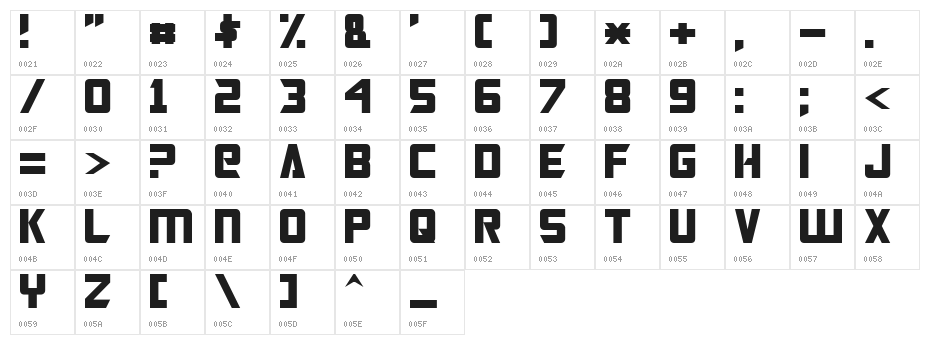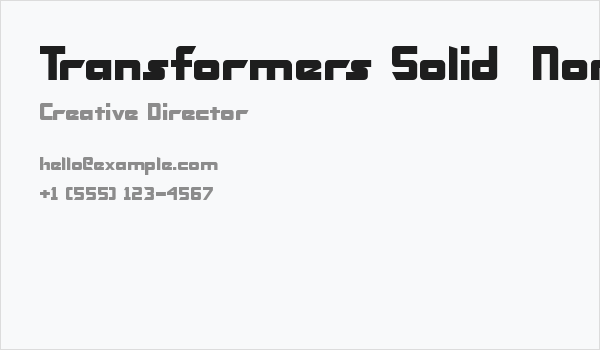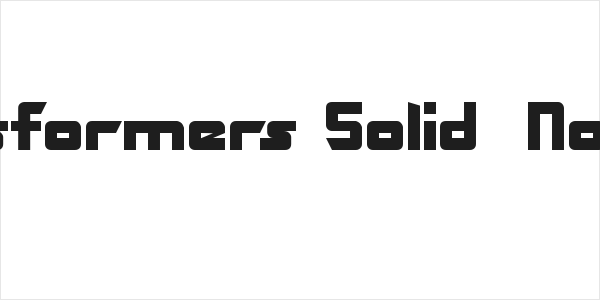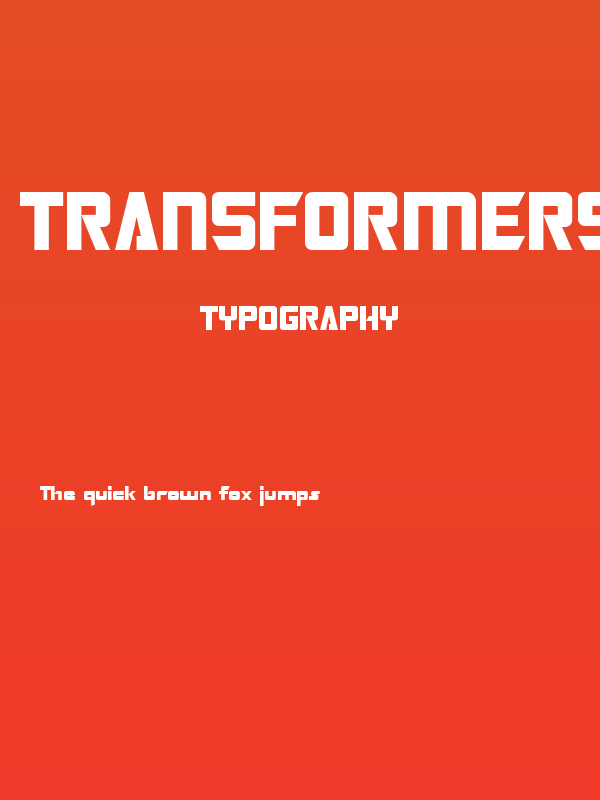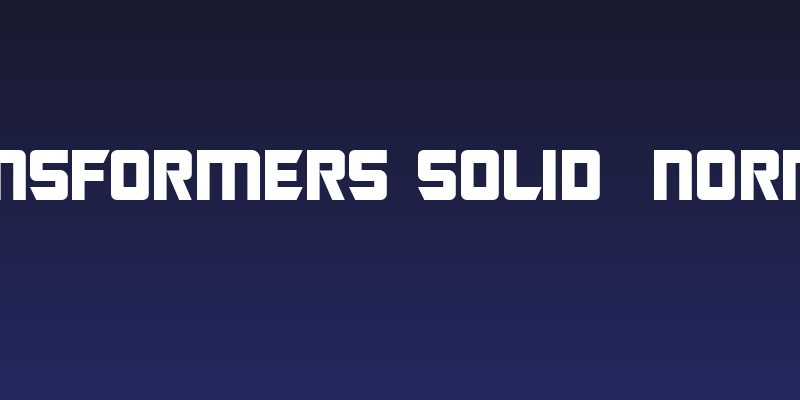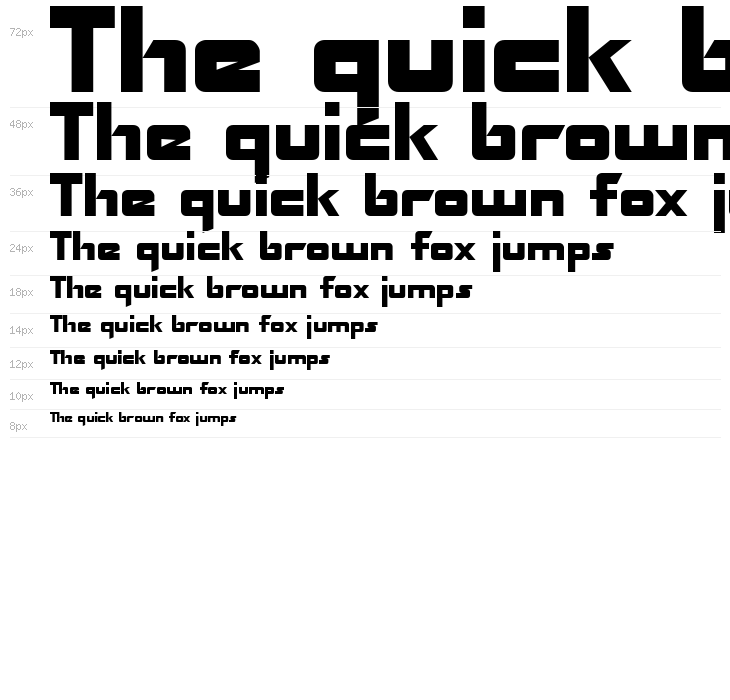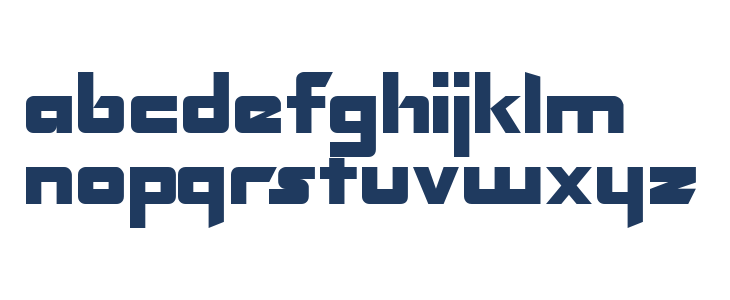
Transformers Solid Normal Font
Transformers Solid Normal Description
This font features a bold and futuristic design with angular and geometric shapes that give it a strong, impactful presence. The uppercase and lowercase letters maintain a consistent style, characterized by sharp edges and a solid, block-like appearance. The numerals and special characters follow the same design principles, ensuring uniformity across all elements. Its unique style makes it suitable for projects that require a modern and dynamic look.
Proposed ProjectsIdeal for sci-fi themed posters, video game titles, and branding for tech companies.